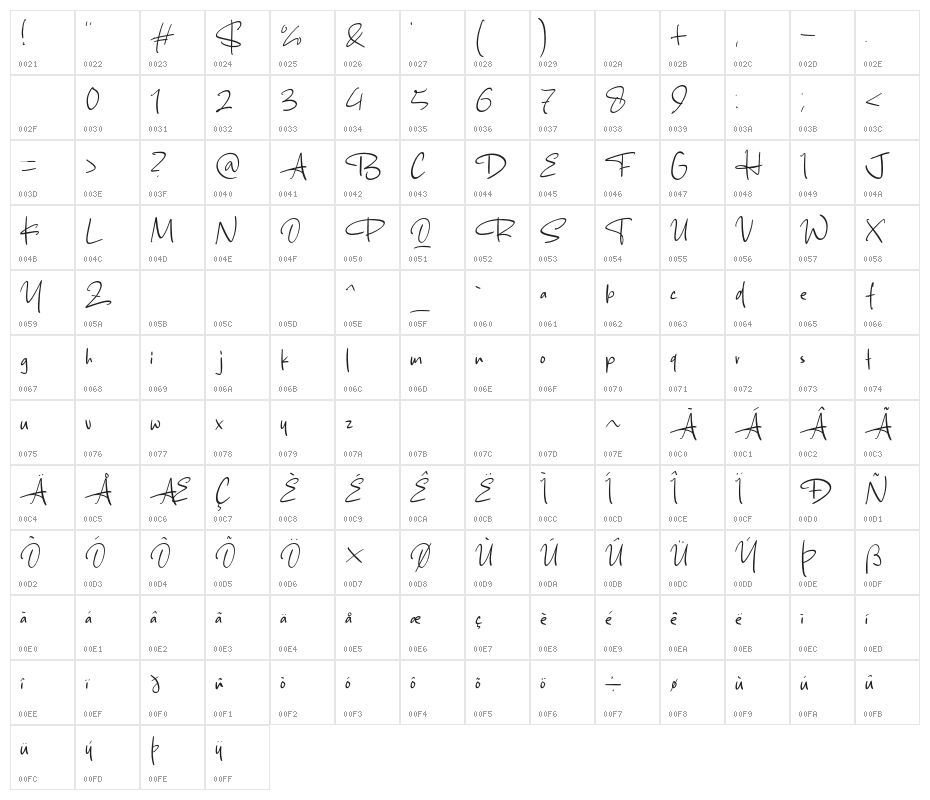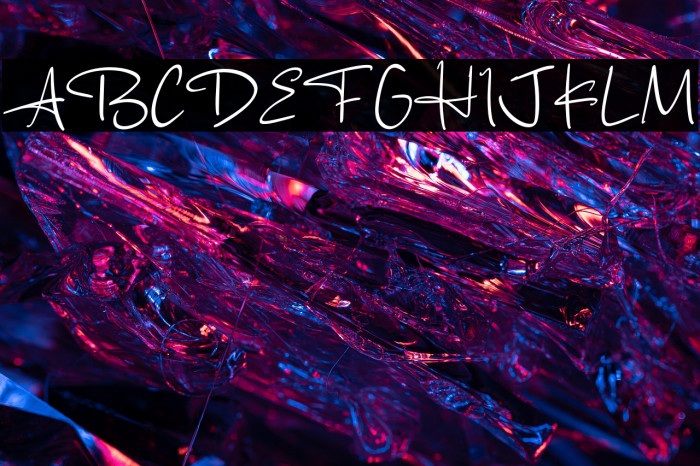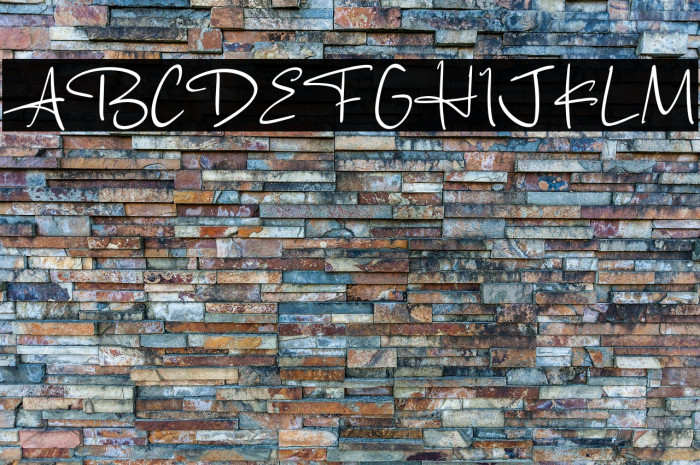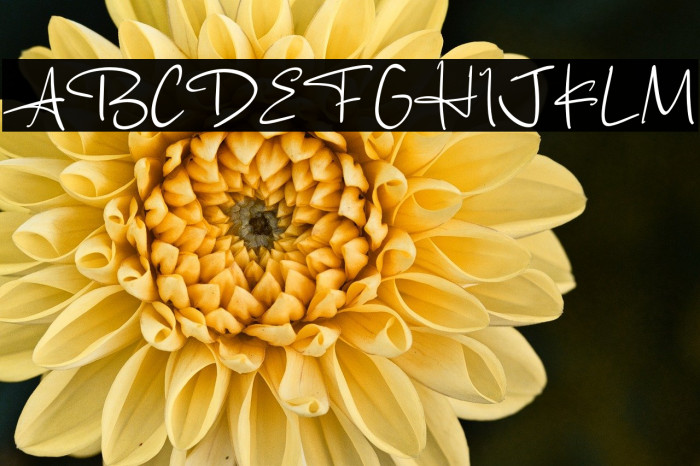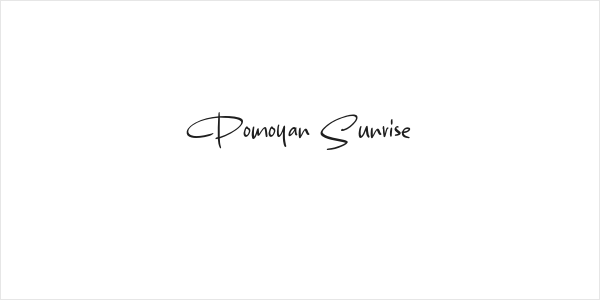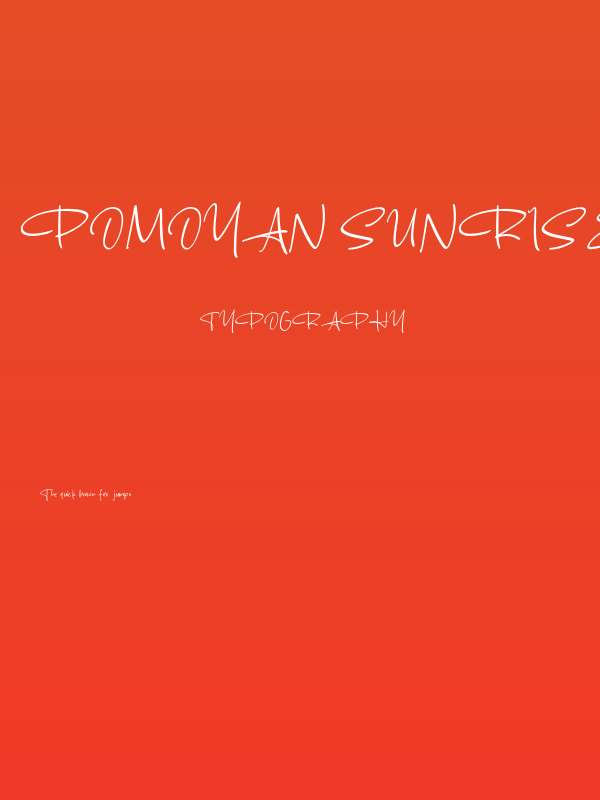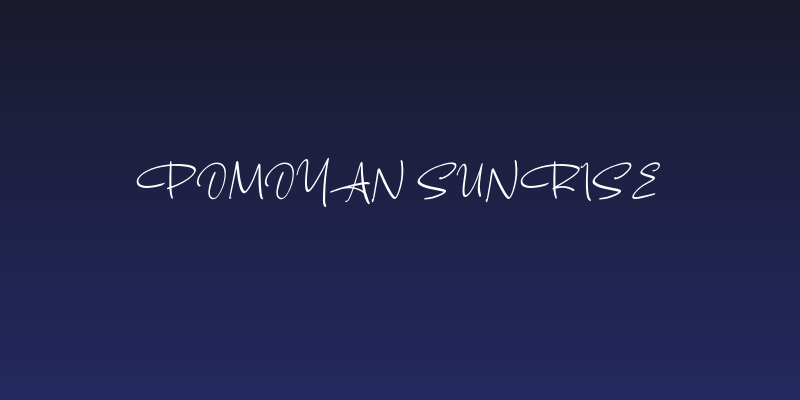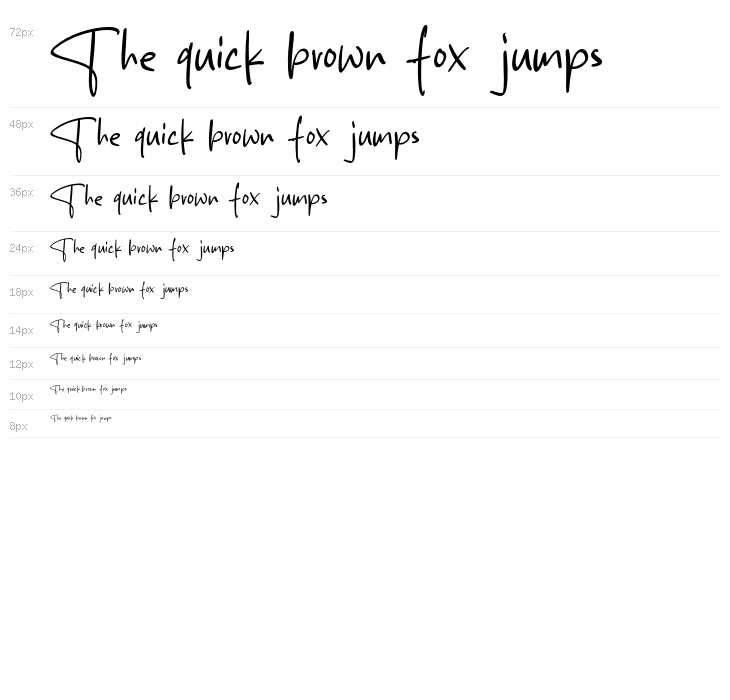
Pomoyan Sunrise Font
Pomoyan Sunrise Description
This font exudes a casual and artistic flair, characterized by its fluid and handwritten style. The uppercase letters are bold and dynamic, with a slight slant that adds a sense of motion and energy. The lowercase letters maintain a consistent flow, enhancing readability while retaining a personal touch. Numbers are distinct and easily recognizable, complementing the overall aesthetic. Special characters are creatively integrated, maintaining the font's playful and informal vibe. This font is perfect for projects that require a personal, human touch, such as invitations, greeting cards, or creative branding.
| Overall Style | Casual, Artistic |
| Proposed Projects | Ideal for invitations, greeting cards, creative branding, and personal projects. |